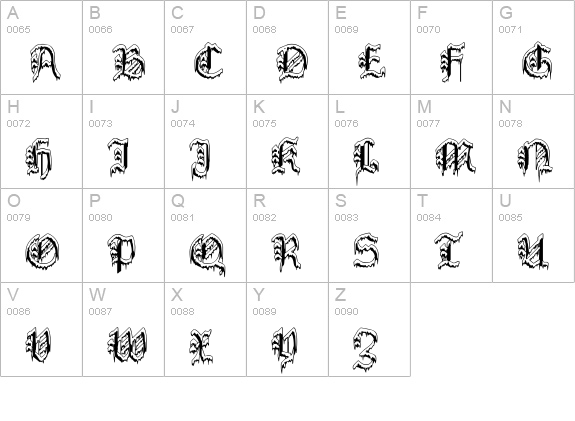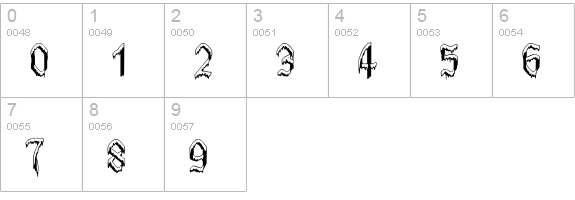
PlymouthRock 'SnowDusted' Font Details
Introducing PlymouthRock 'SnowDusted' font, a captivating and enchanting typeface that brings a touch of winter magic to your designs. This unique font showcases a delicate snow-dusted effect, adding a sense of frosty elegance to any project. With its intricate details and graceful curves, PlymouthRock 'SnowDusted' captures the essence of a snowy landscape, creating a visual experience like no other. Whether you're designing holiday-themed invitations, winter-inspired logos, or seasonal greeting cards, this font will effortlessly transport your audience into a world of tranquility and wonder. But what makes PlymouthRock 'SnowDusted' font even more remarkable is that it is completely free! Yes, you read that right. This extraordinary typeface is freely available to download at FontsMarket.com, allowing you to bring the beauty of winter to your designs without any cost or limitations. Imagine the possibilities with PlymouthRock 'SnowDusted' font as your creative companion. Its versatility ensures that it can be used for various design projects, from digital artworks to printed materials. The exquisite snow-dusted details will add a touch of sophistication and elegance, making your creations stand out from the crowd. As you explore the depths of this exquisite font, you'll discover its extensive character set, including uppercase and lowercase letters, numbers, punctuation marks, and special symbols. This comprehensive range allows you to express your ideas and messages with clarity and style. So, don't miss out on this incredible opportunity to enhance your designs with PlymouthRock 'SnowDusted' font. Head over to FontsMarket.com now and download this captivating typeface for free. Let the snow-dusted charm of this font elevate your designs and captivate your audience with its wintry allure.